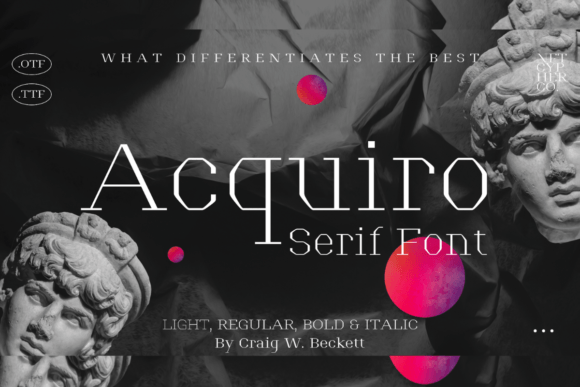
Step into the world of Acquiro, an elegant serif font family, a masterpiece crafted by Beta To Alpha Club. Acquiro's delicate and classy allure emanates from its perfectly balanced strokes and a touch of variety that adds a captivating rhythm to your designs.
Whether you're a designer, a creative professional, or simply someone with a passion for aesthetics, Acquiro is the perfect choice to elevate your projects. Its carefully crafted letterforms, ranging from delicate hairlines to bold strokes, create a harmonious visual experience that draws the eye and captivates the senses.
Imagine your designs adorned with Acquiro's timeless beauty. Its meticulously drawn curves and sharp serifs lend an air of sophistication and luxury, making even the simplest text look like a work of art. From brochures and websites to branding and packaging, Acquiro's versatility knows no bounds.
Acquiro's intuitive design makes it effortless to use, whether you're a seasoned professional or just starting out. Its extensive character set and multilingual support ensure that your designs communicate effectively with a global audience.
And here's the best part: Acquiro is not just visually stunning; it's also incredibly functional. Its optimized kerning and leading ensure impeccable readability, making your text easy on the eyes, even in lengthy passages.
Join the growing community of designers who have discovered the magic of Acquiro. Let its timeless elegance elevate your projects and leave a lasting impression on your audience.